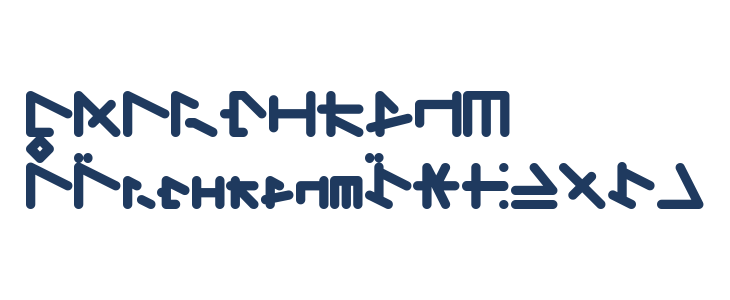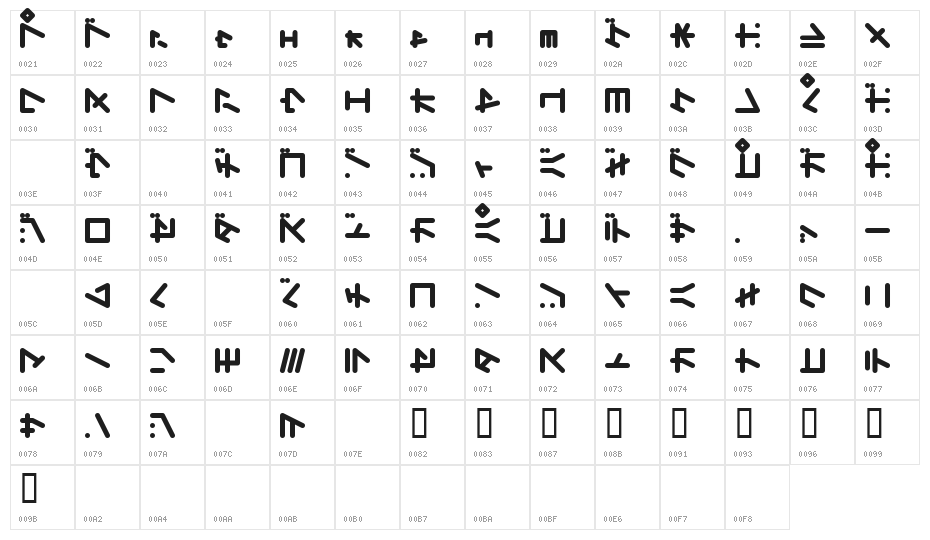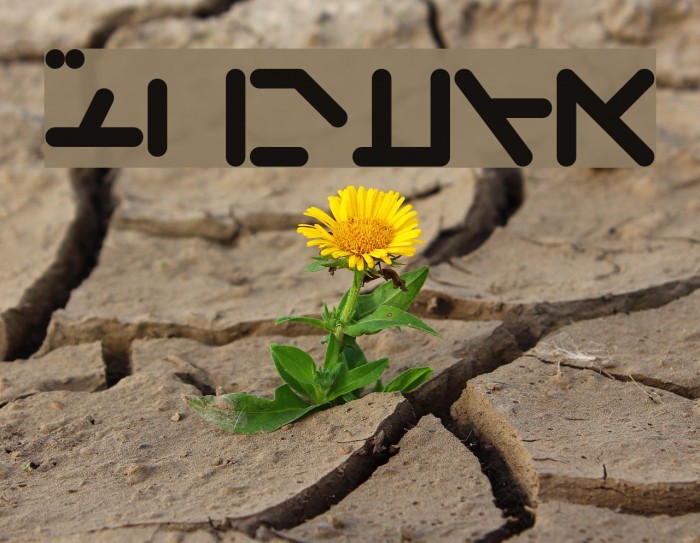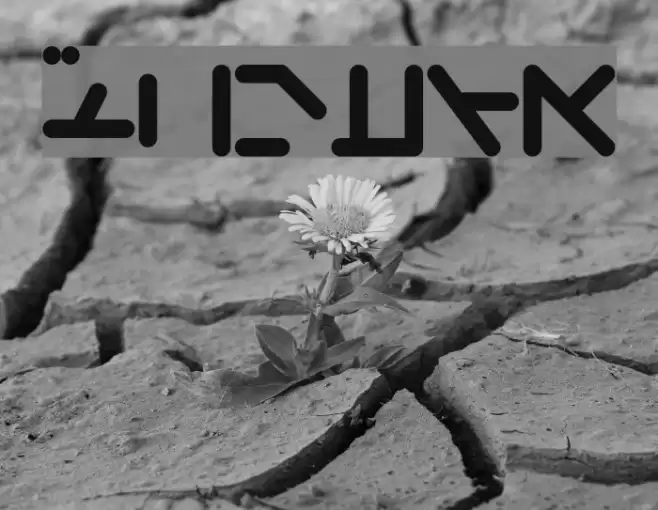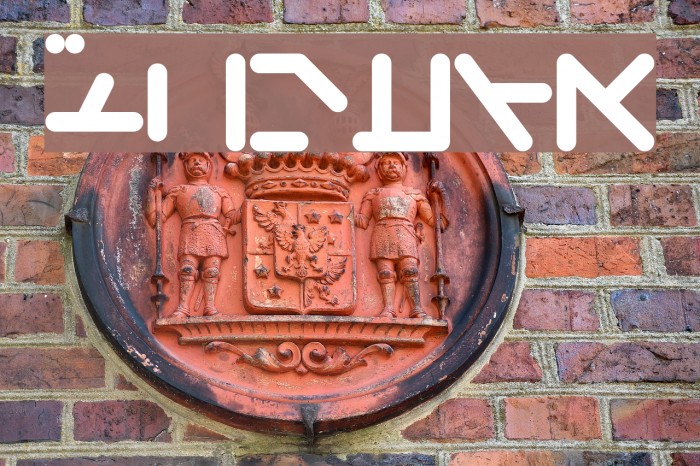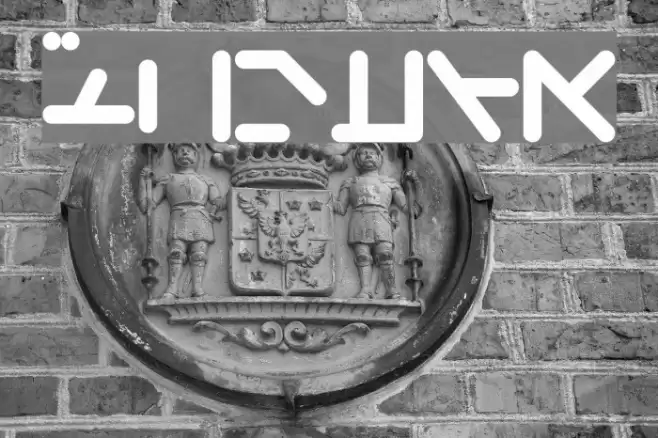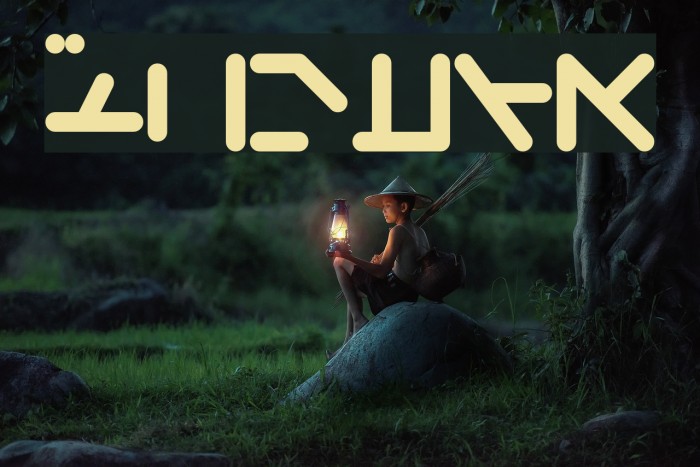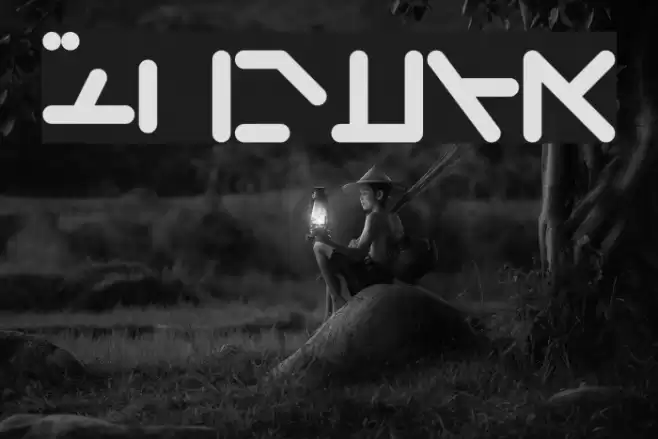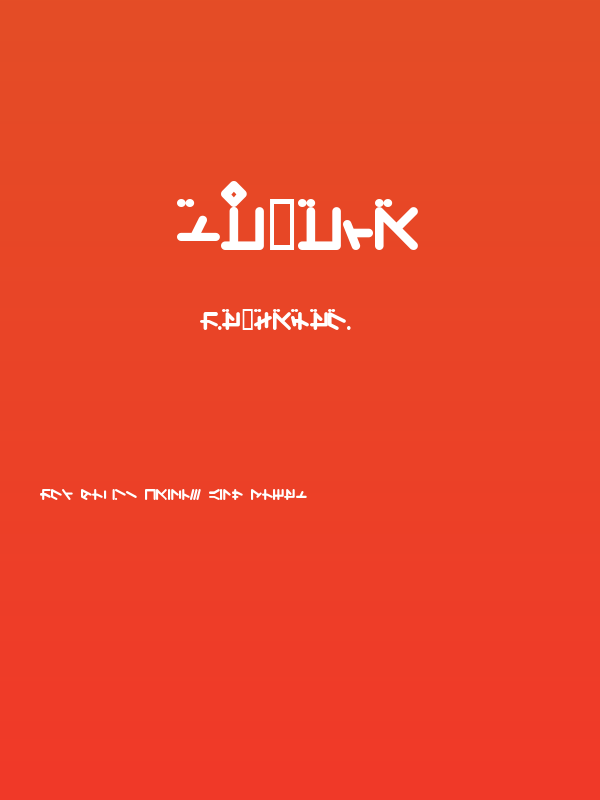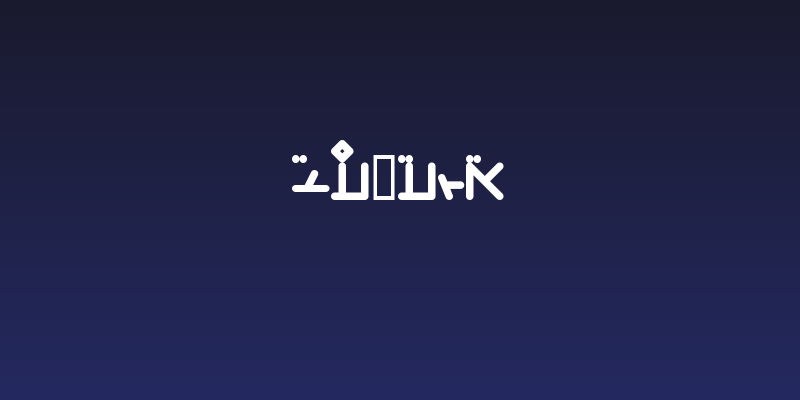
Silver Font
Silver Description
A highly stylized, geometric, and decorative typeface featuring thick, rounded strokes and prominent dot accents. The characters are abstract and resemble a constructed or fictional script, with consistent line thickness and a futuristic, alien-like appearance.
| Overall Style | Futuristic, Decorative, Sci-Fi |
| Use Case | Logos, Headlines, Posters, Themed Events |
| Proposed Projects | Science fiction titles, video game interfaces, movie posters, fantasy branding, escape room puzzles. |